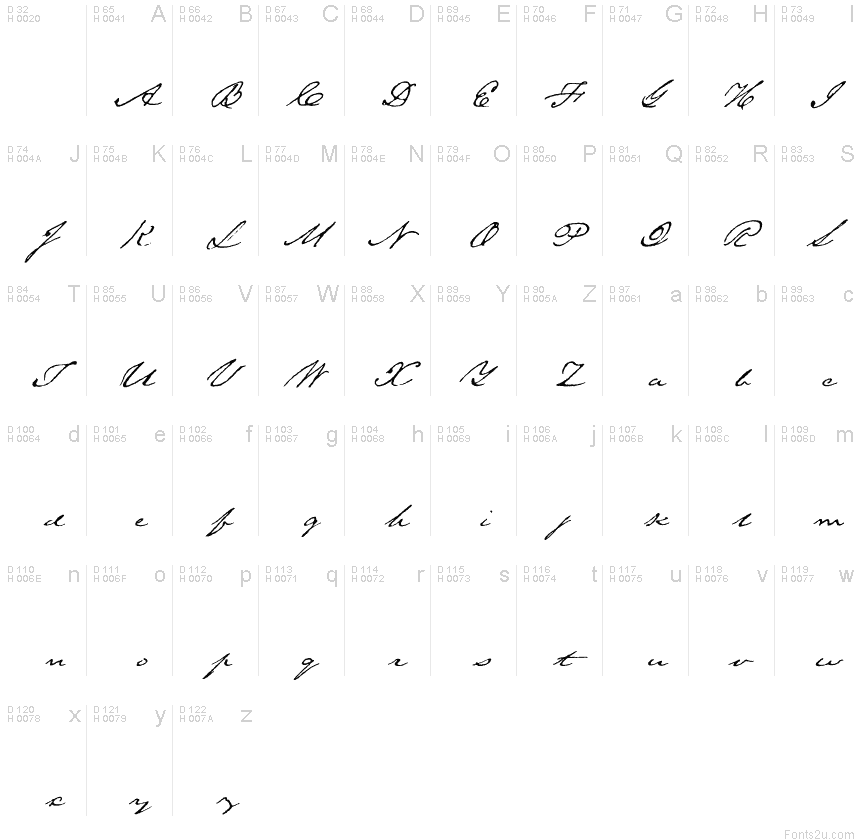
Saeculum
Saeculum, a free handwritten script from Three Islands Press, has the loose, quick rhythm of a note written with a dry brush or worn pen. The letters sweep forward in long, slightly scratchy strokes, with open curves and rising loops that keep the font feeling airy rather than ornamental.
It fits naturally in book jackets, poetry titles, gallery invites, cafe branding, and editorial cover lines where a personal mark matters more than polish. Used as a free font for short quotes, title cards, signatures, or drop-ins between more structured type, it works because the writing feels genuinely human and a little restless.